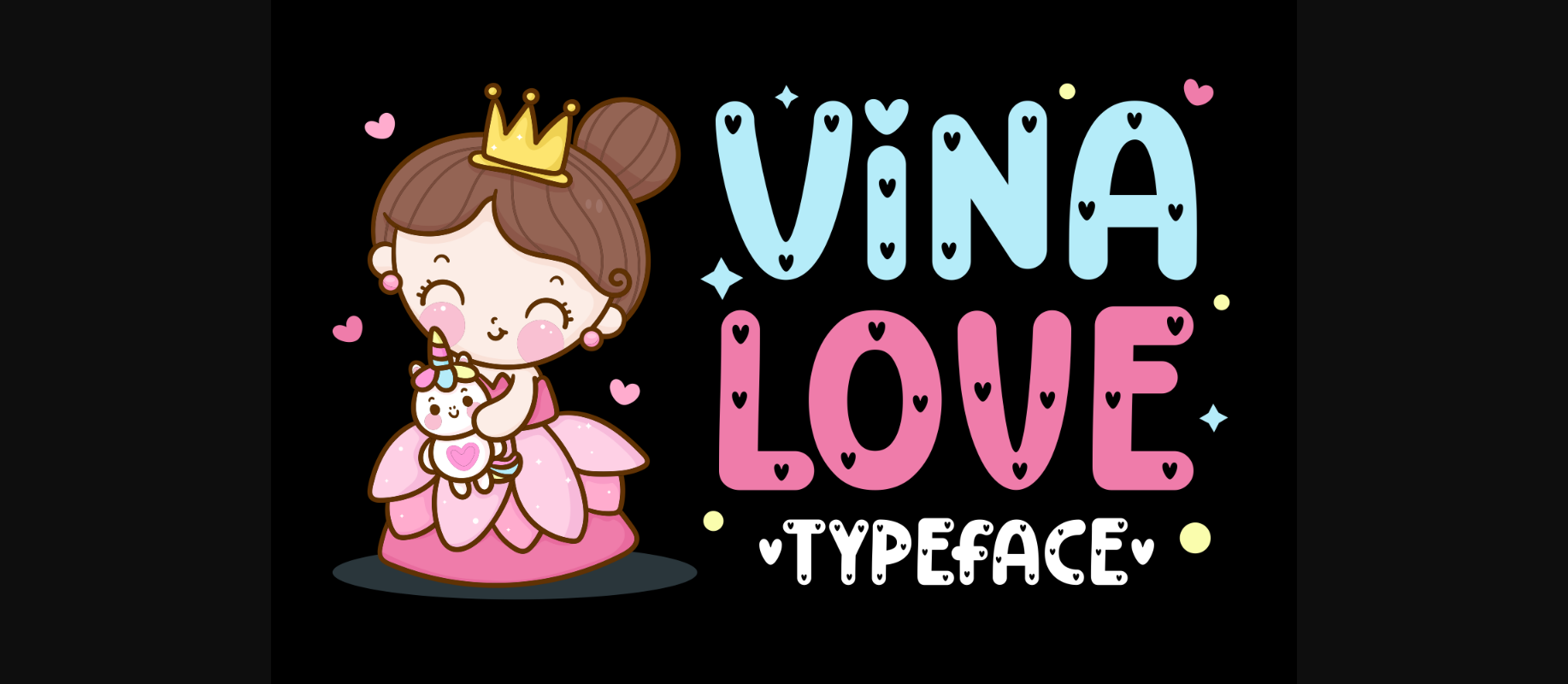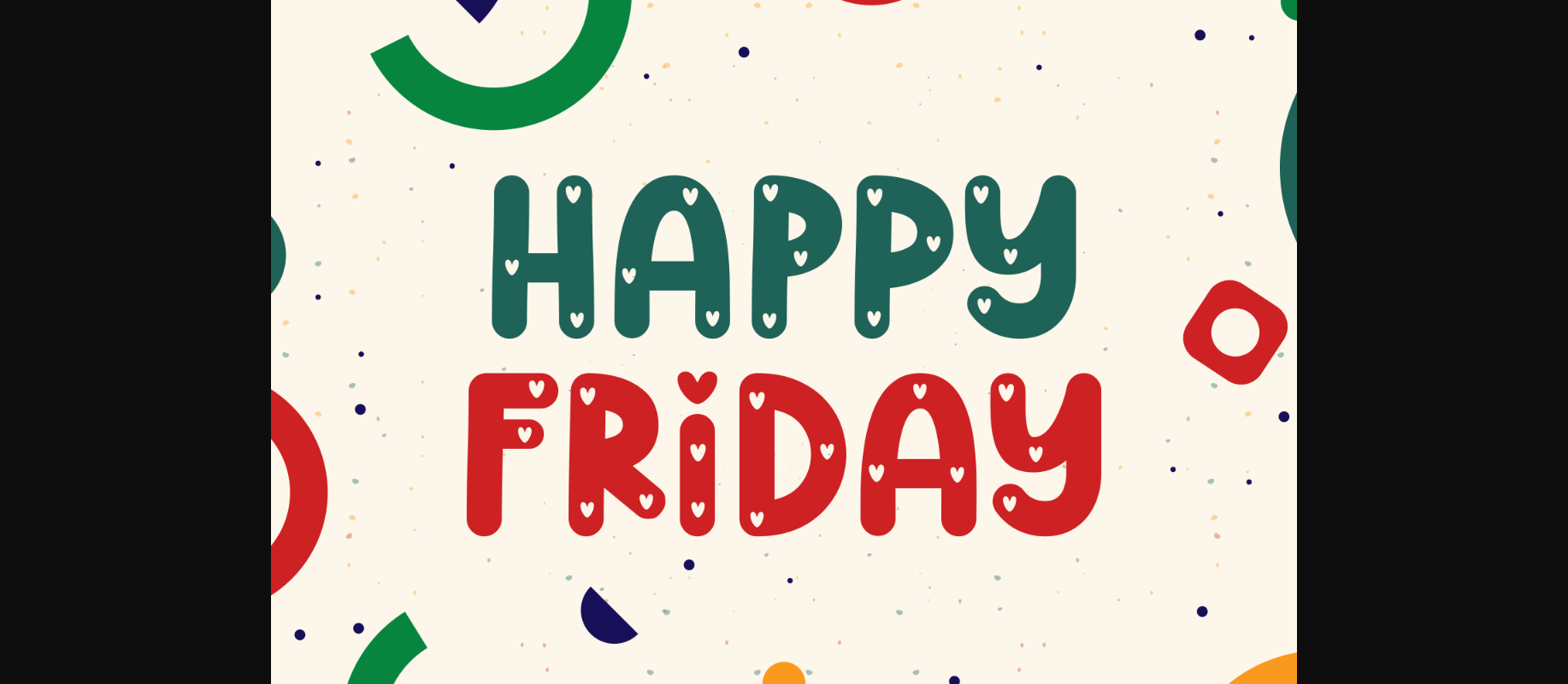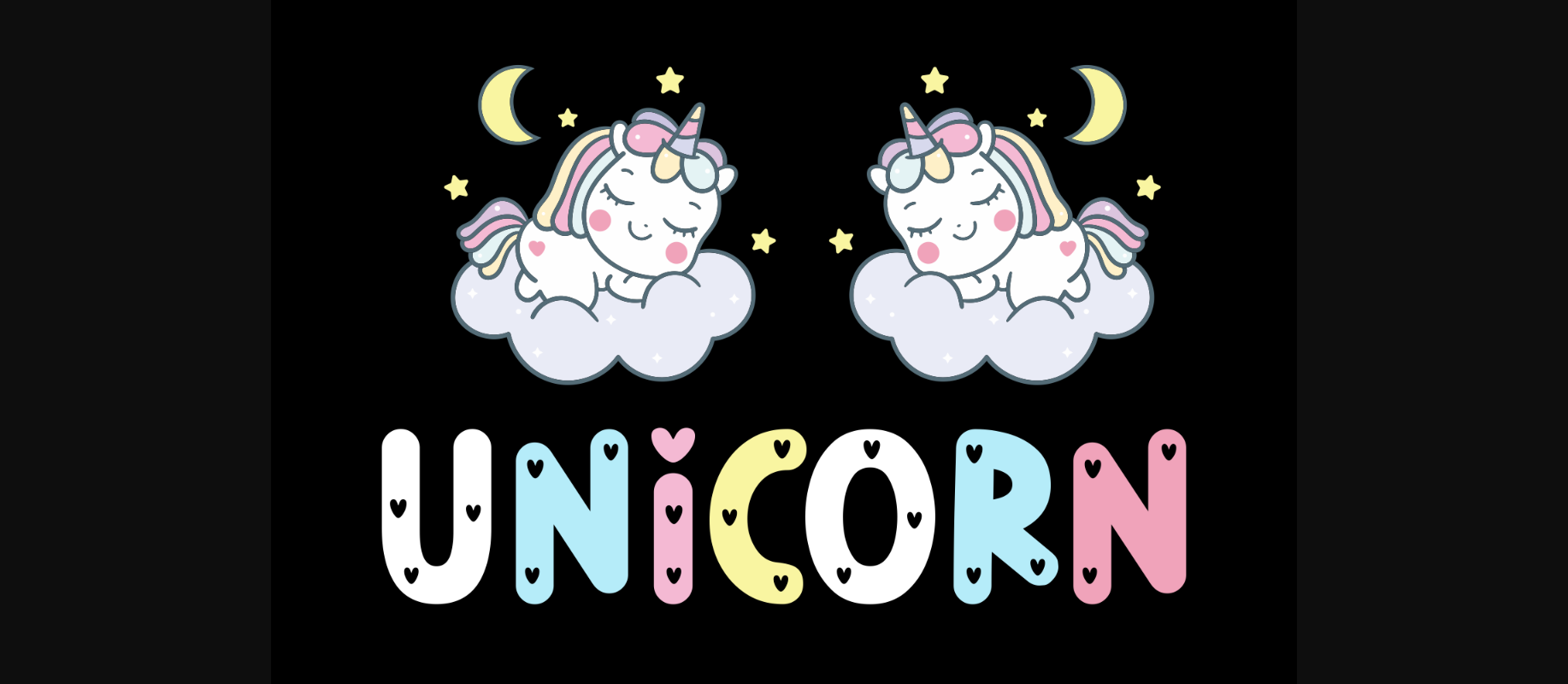
About Vina Love Font
Vina Love is incredibly cool and full of love decorative font. This sweet and loveable vibe can be easily applied to your favorite designs.